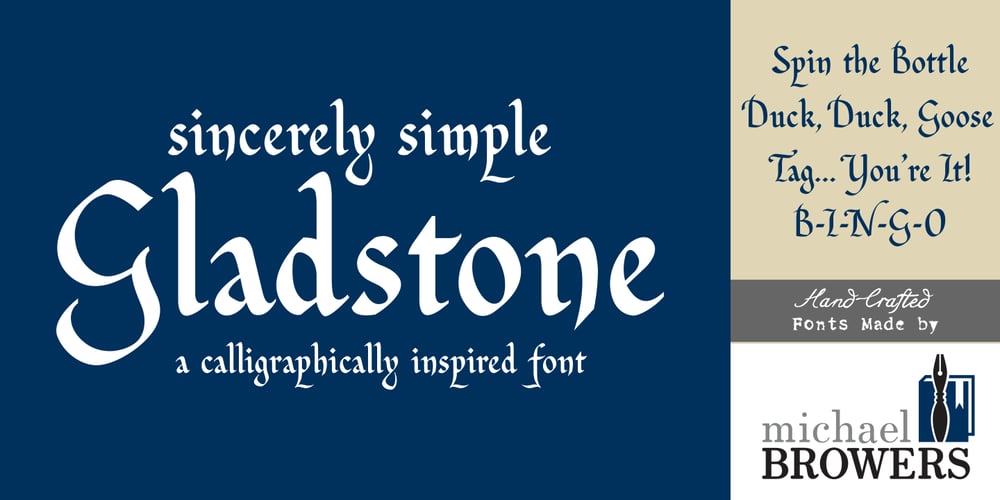
Gladstone Font Family was designed by Michael Jason Browers and published by Michael Browers. Gladstone contains 1 styles and family package options. Gladstone is a charming script typeface inspired by pen lettering techniques.